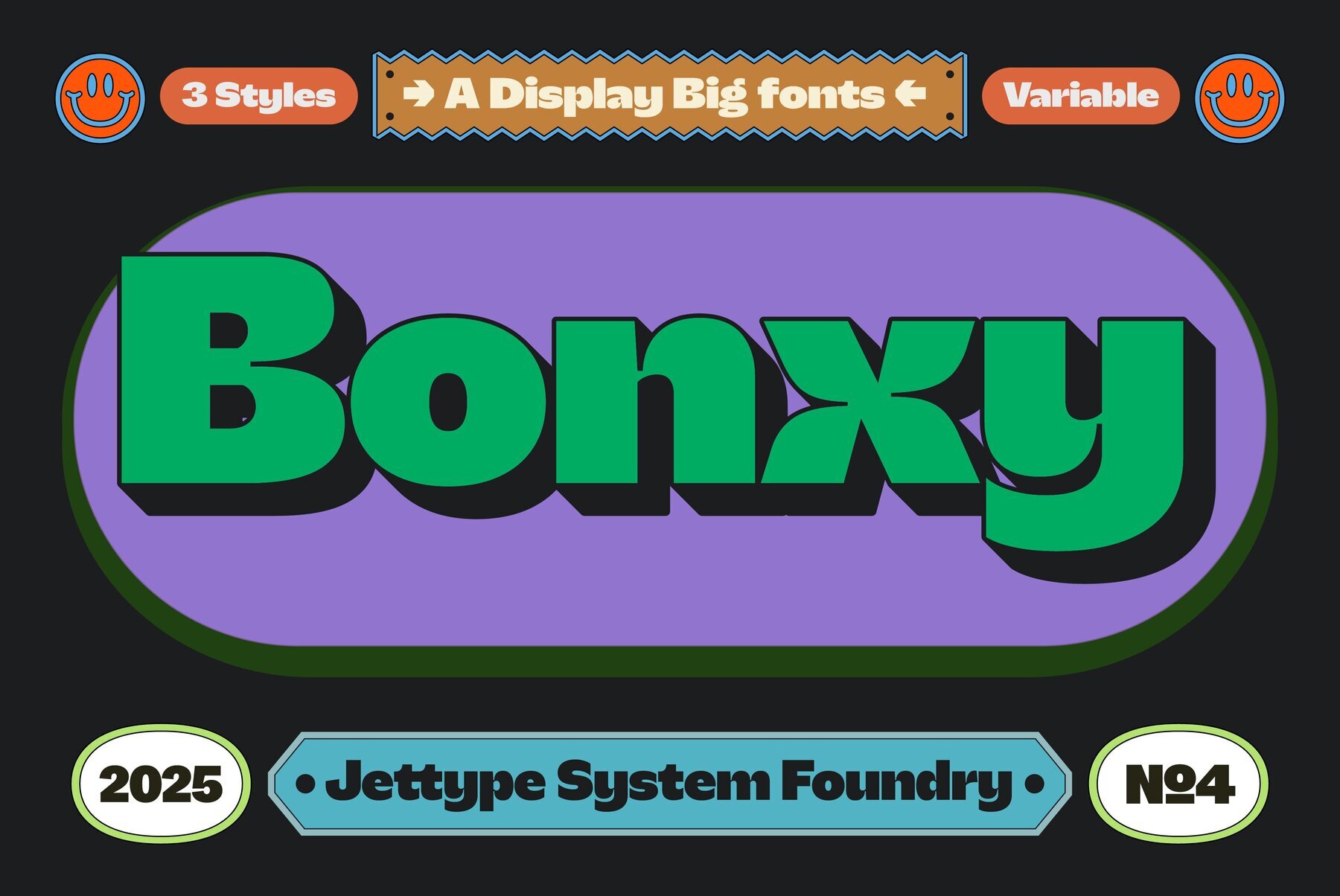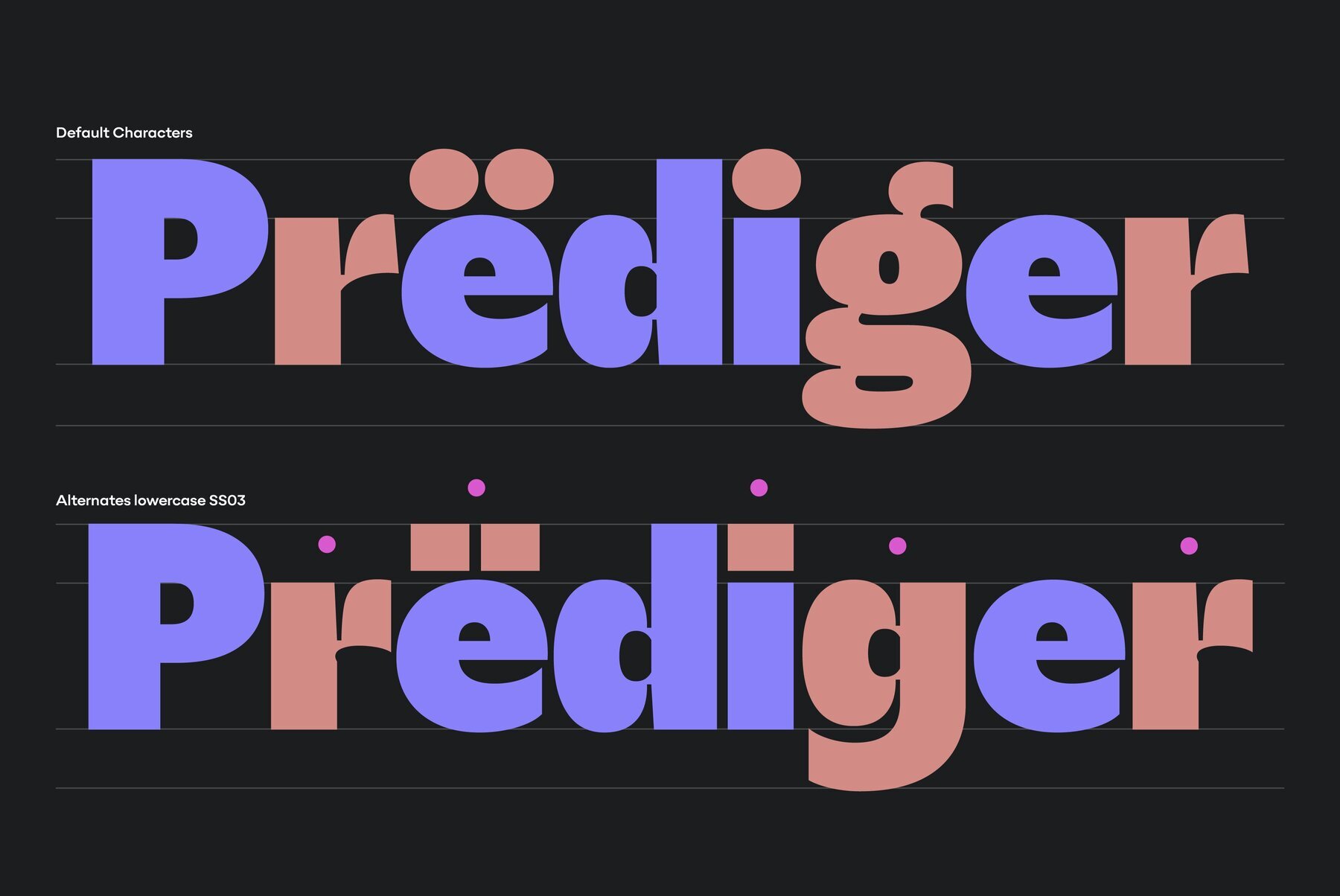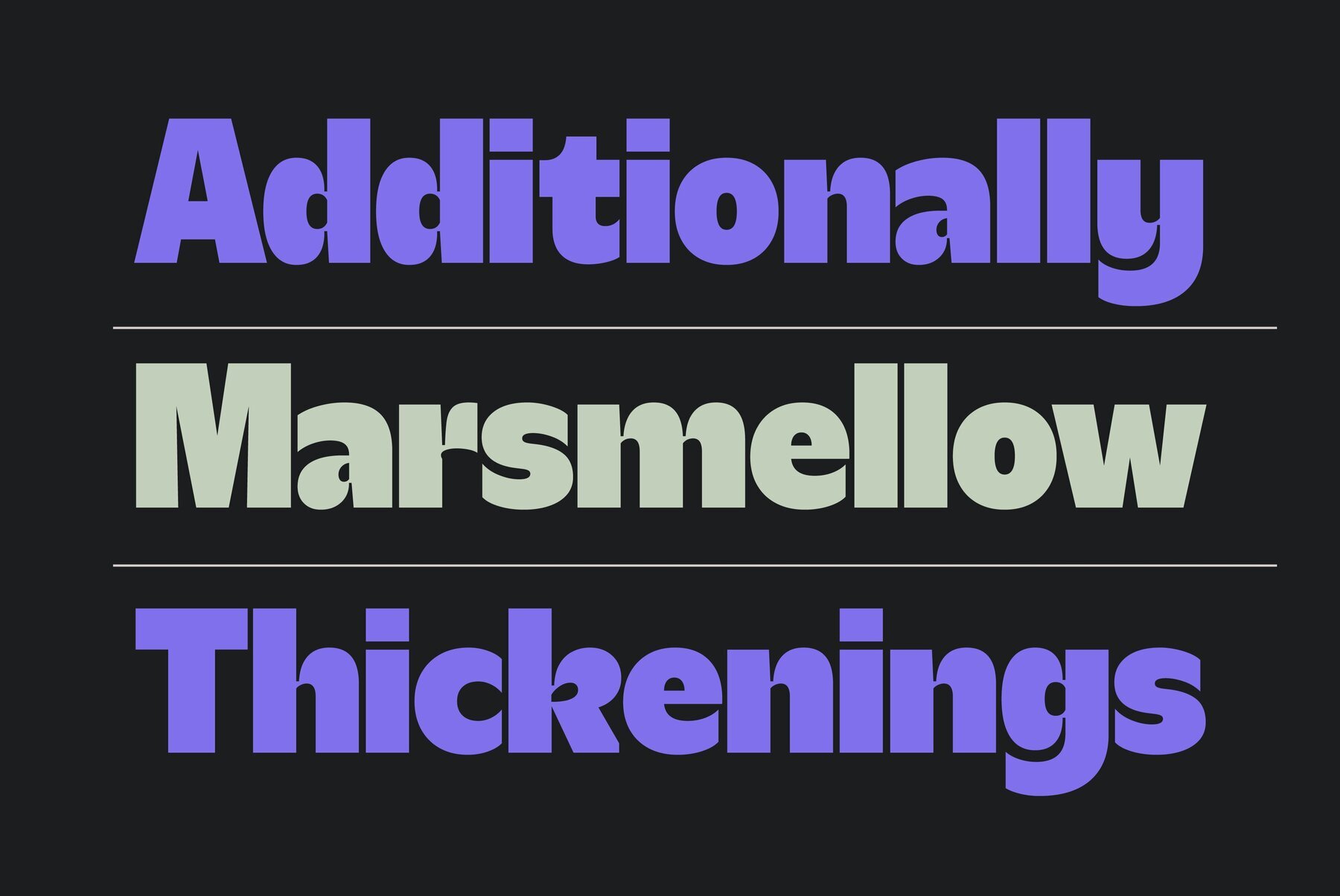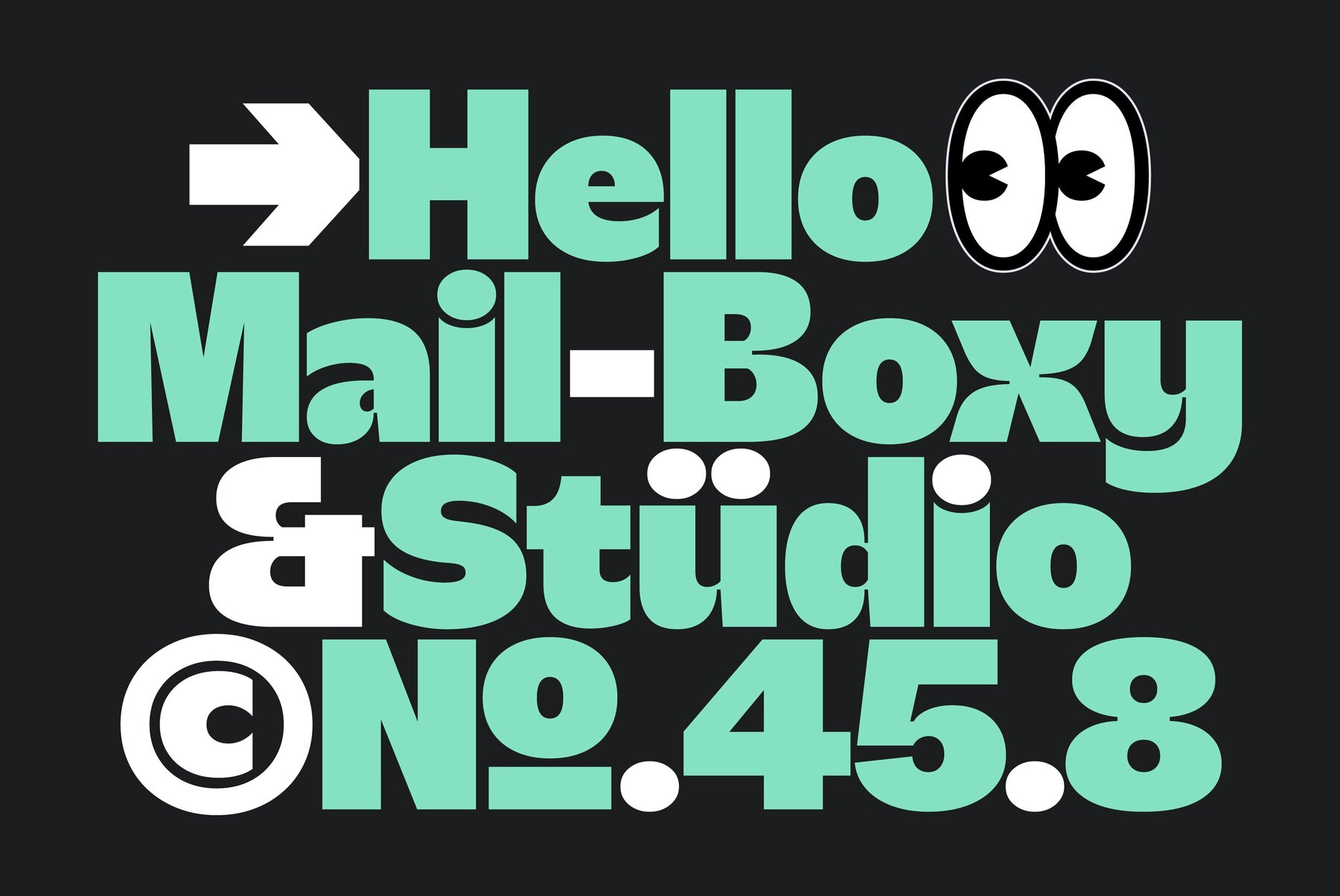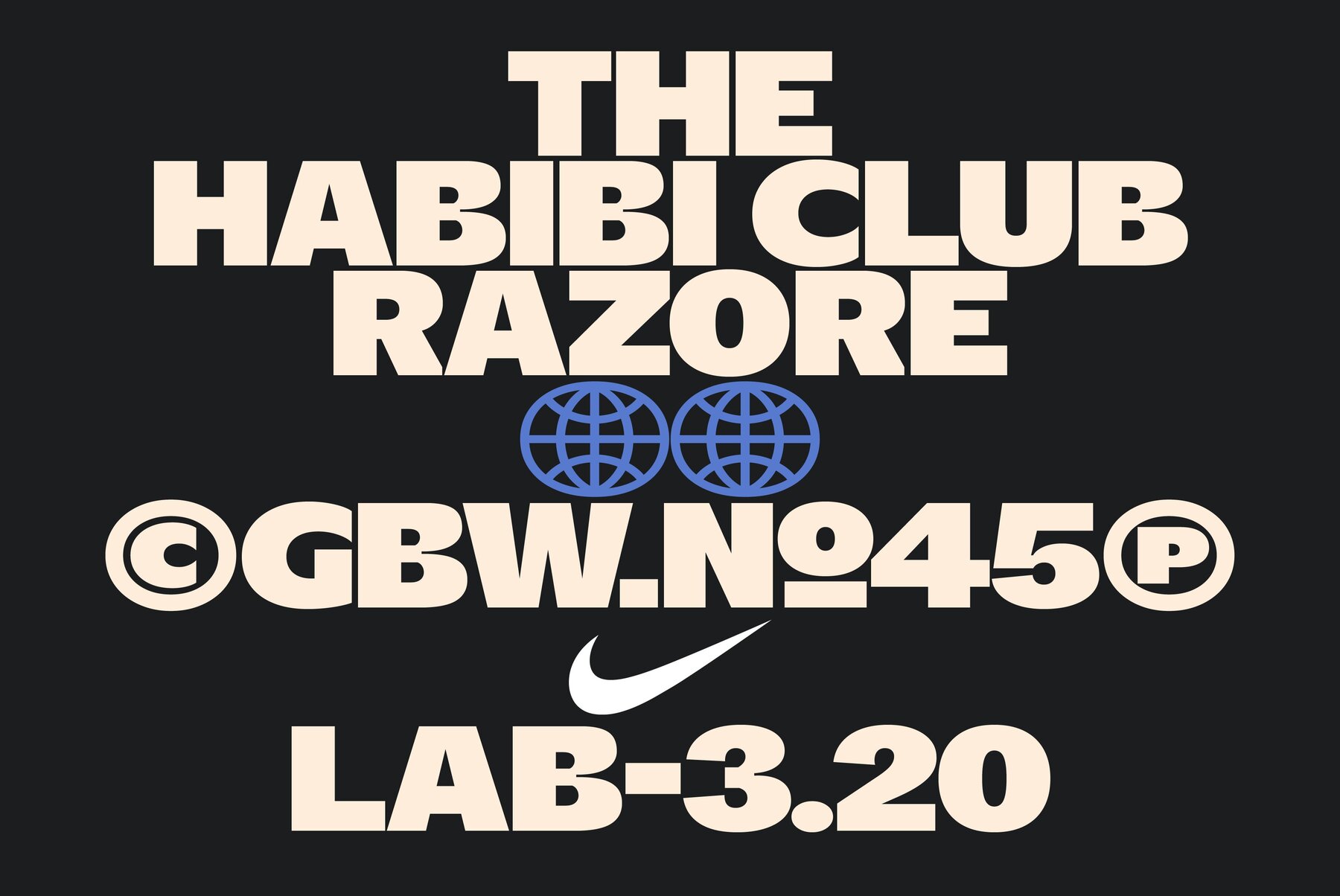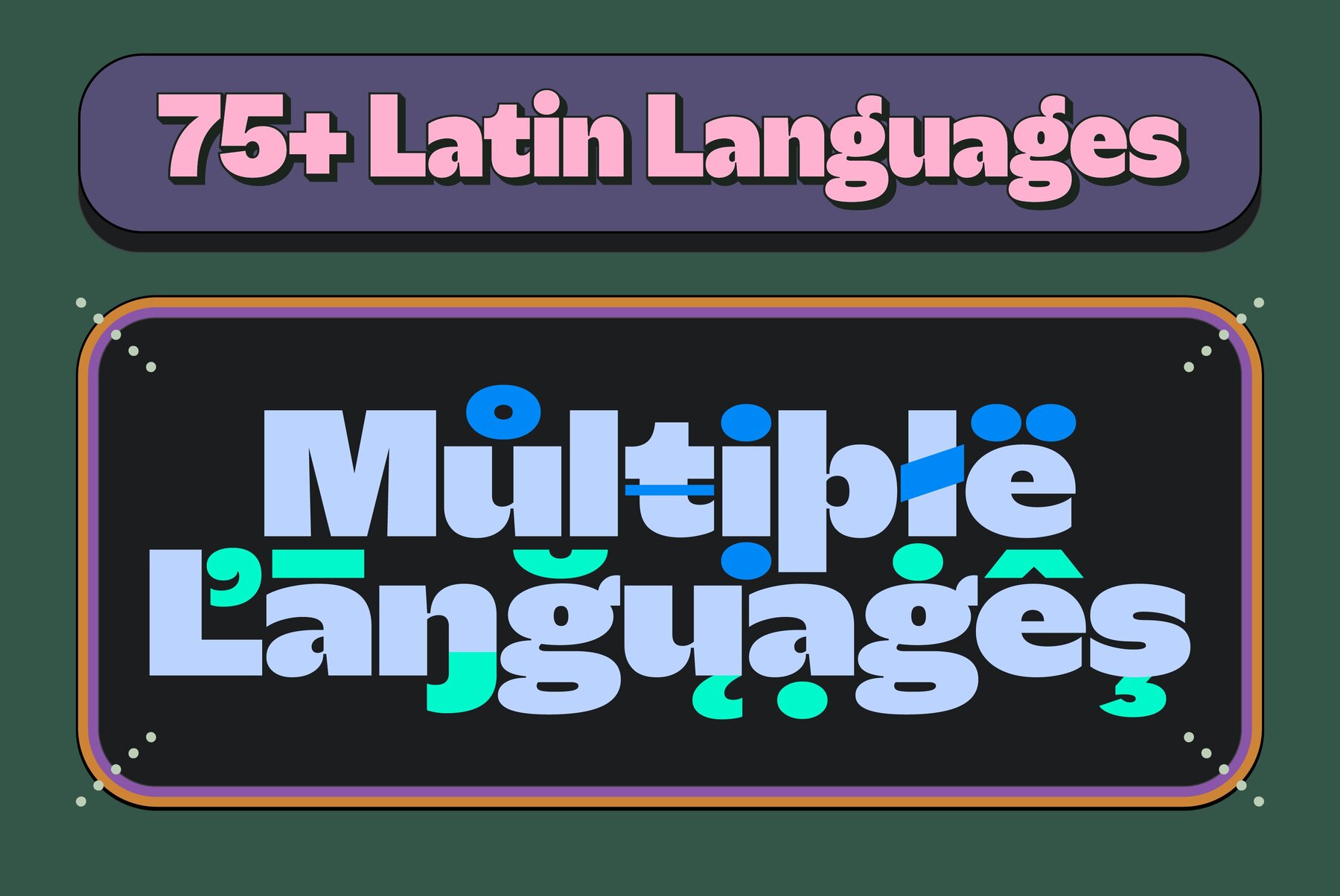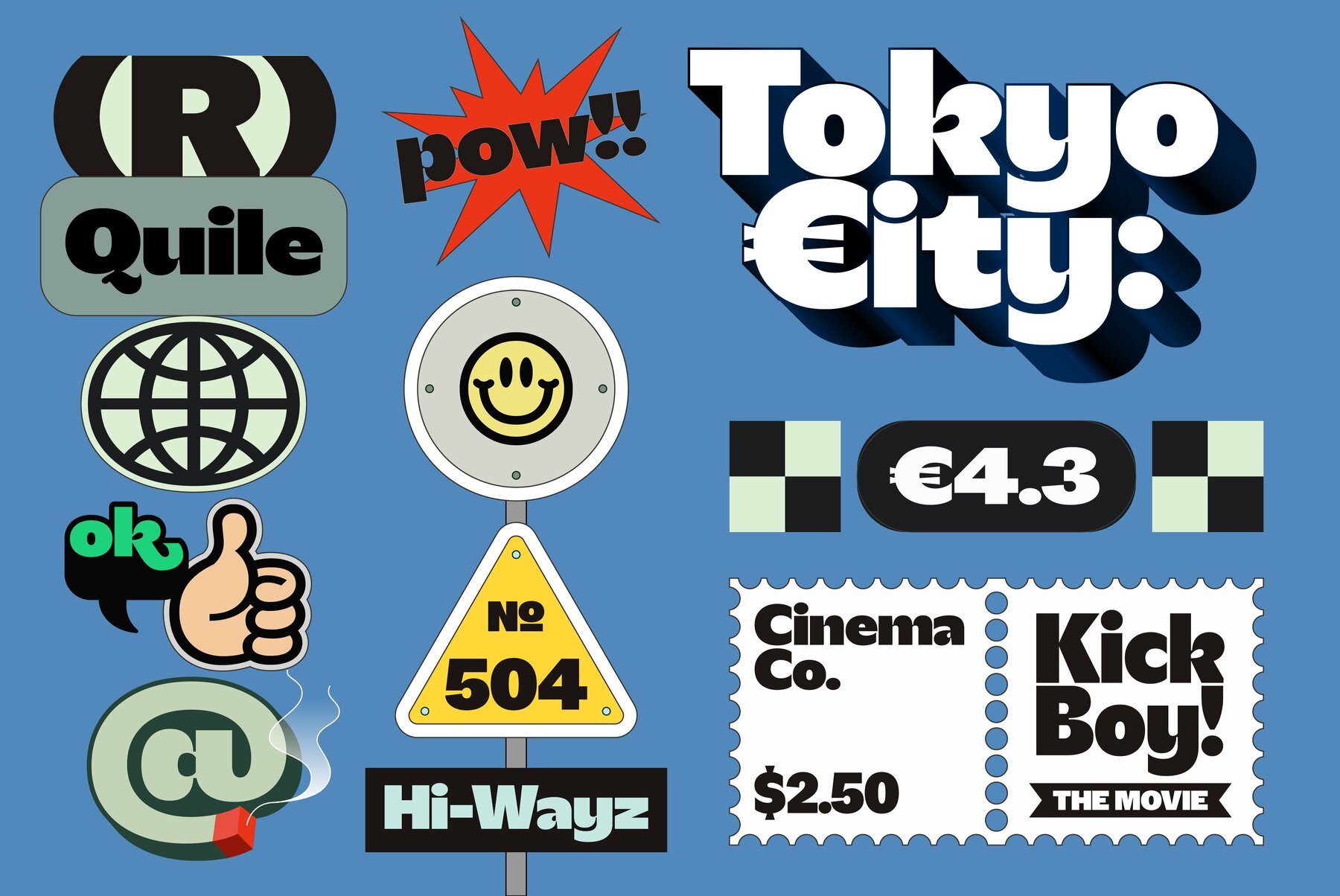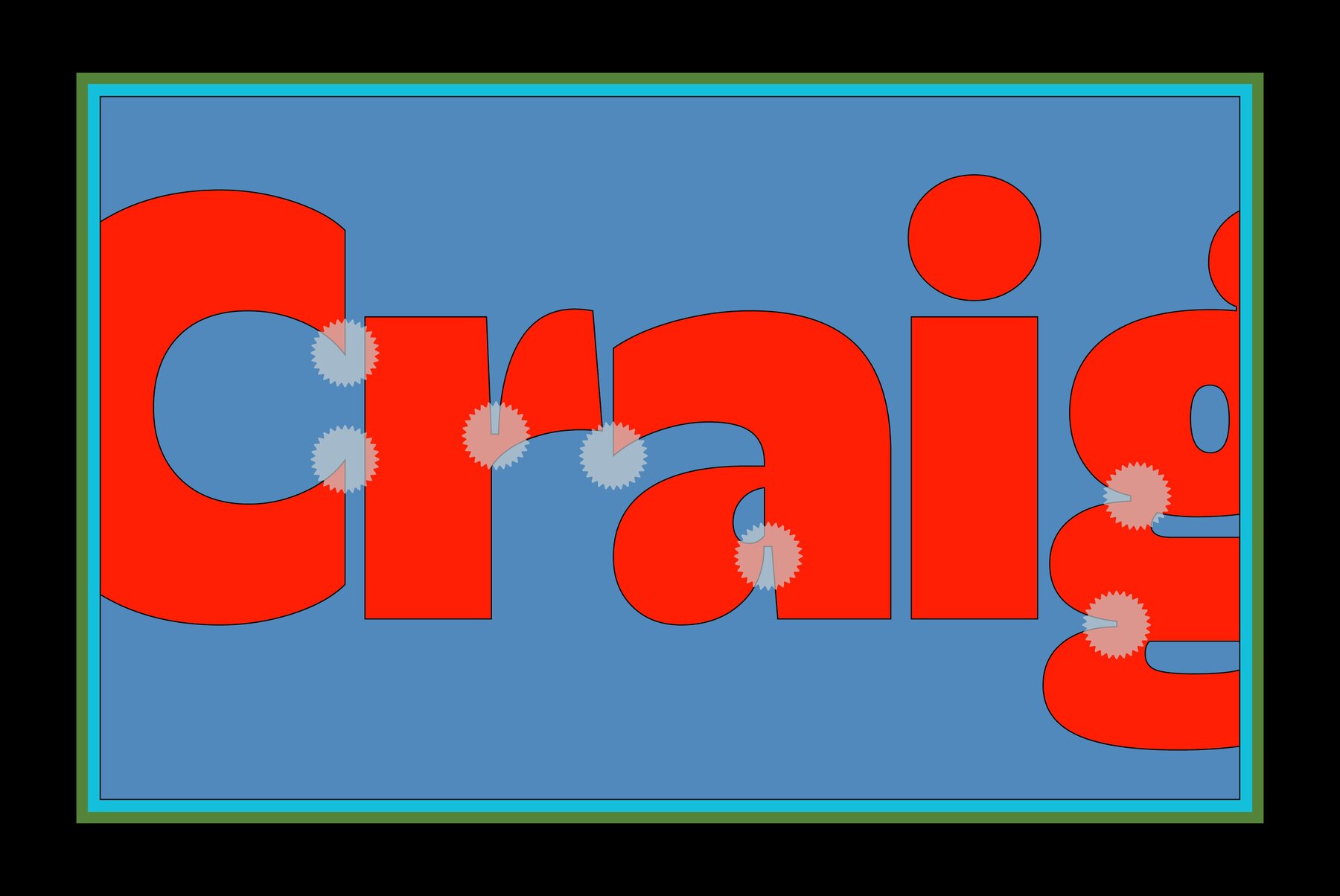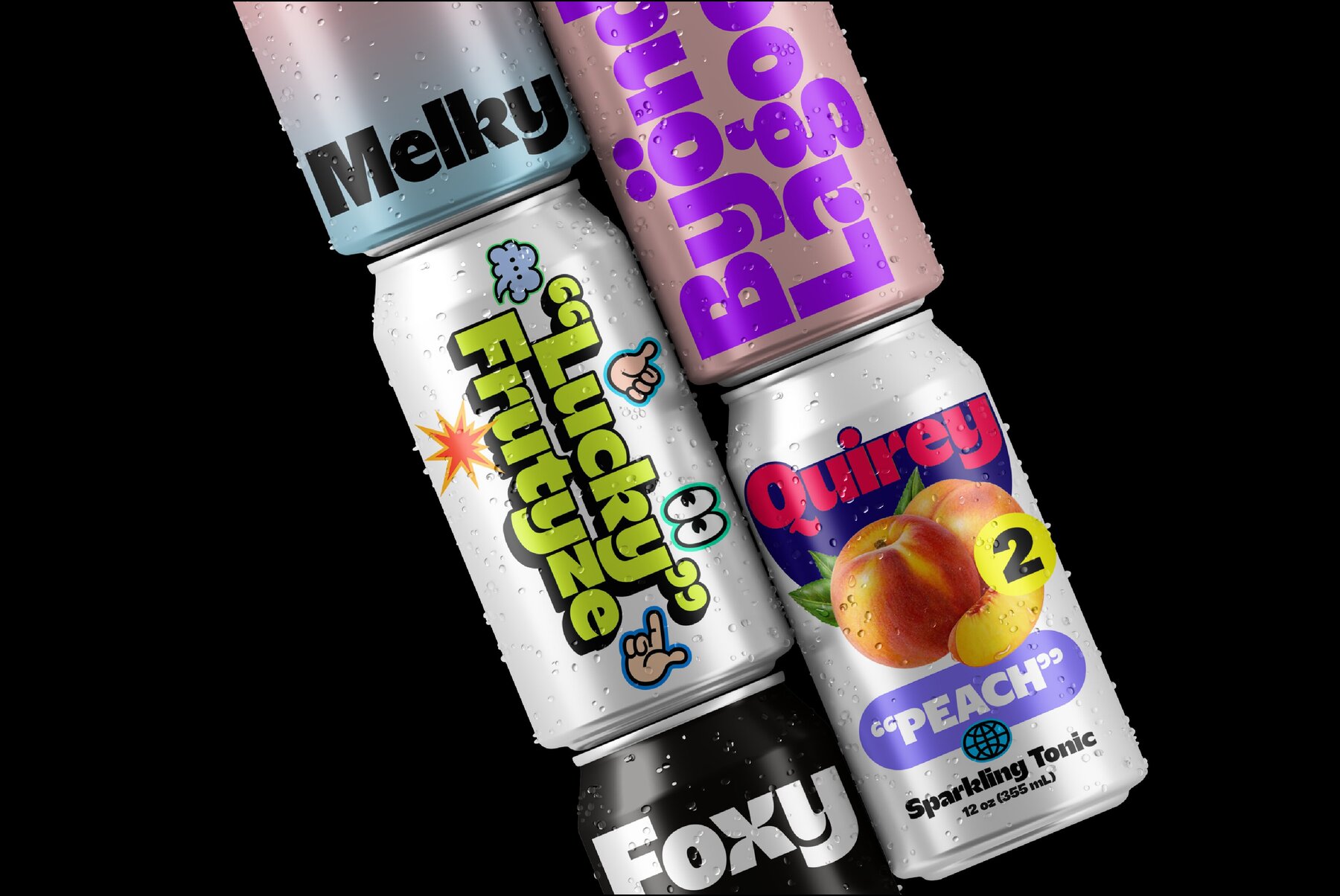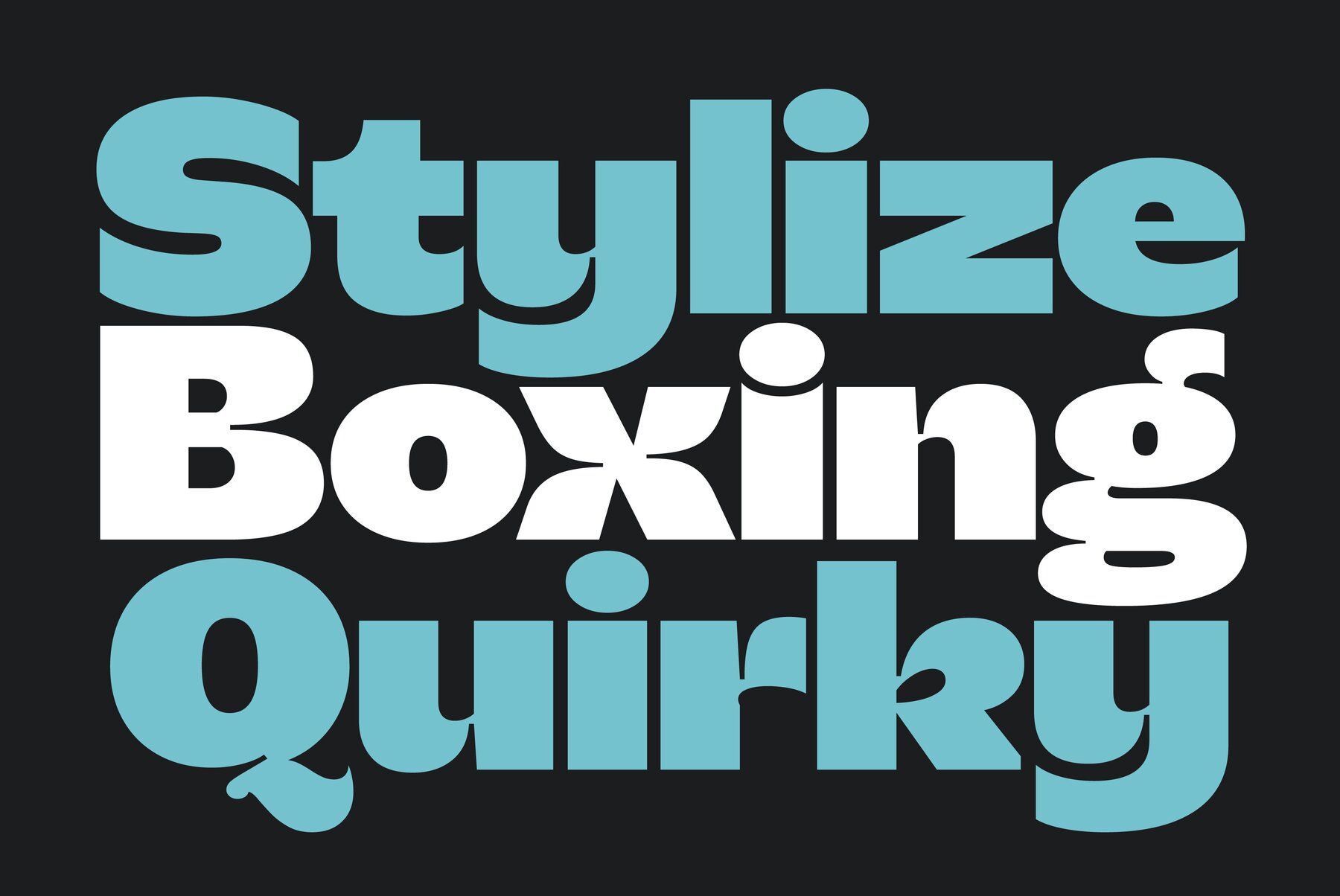
Bonxy Font
Bonxy stands out as a bold display typeface informed by pop culture influences. Its variable-width axis enables seamless adjustment from compressed to expanded forms, giving designers precise control over spacing and visual rhythm. Every letterform is carefully drawn, balancing boldness with clarity to support impactful layouts and cohesive design systems. Bonxy is available in three static weights and as a variable-width version, accommodating a wide range of creative demands. Its extensive set of OpenType features and stylistic alternates invites experimentation, while signature elements—such as the option to toggle between rounded and square dots—introduce subtle typographic nuances. Several customizable characters further personalize the typographic palette. OpenType support includes case-sensitive forms, both standard and discretionary ligatures, fractions, and small numerals, making Bonxy adaptable for branding, editorial headlines, packaging, and logo work. Its blend of personality and versatility suits projects seeking a confident yet flexible typographic solution.Bonxy: Expressive Variable Display Typeface